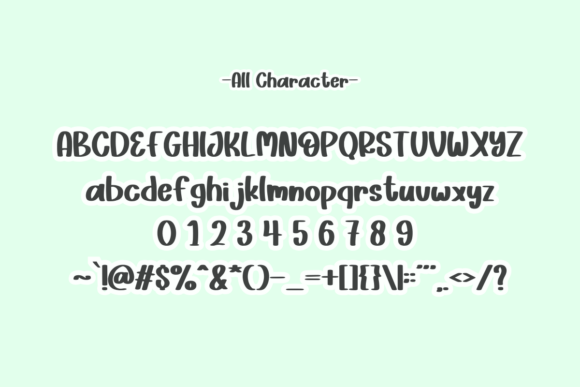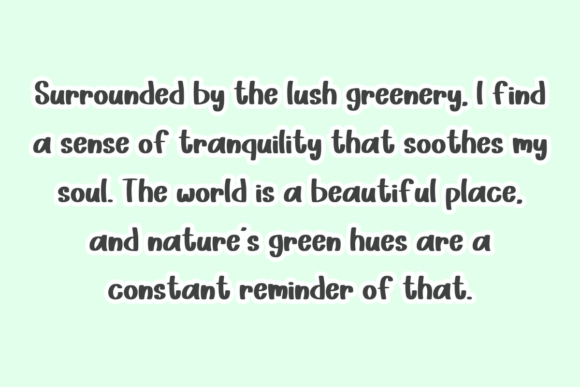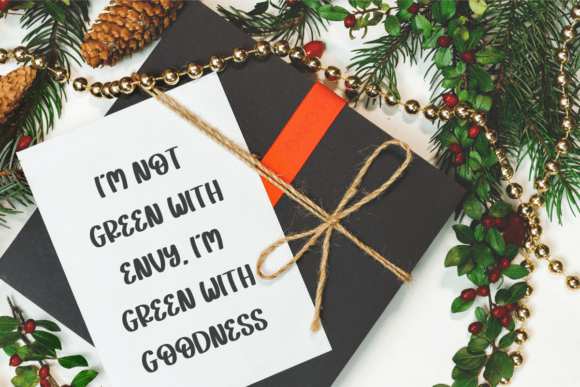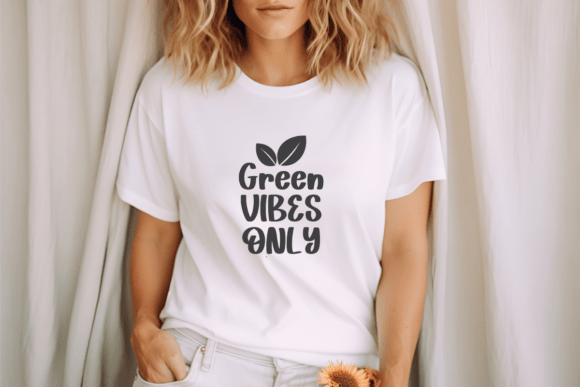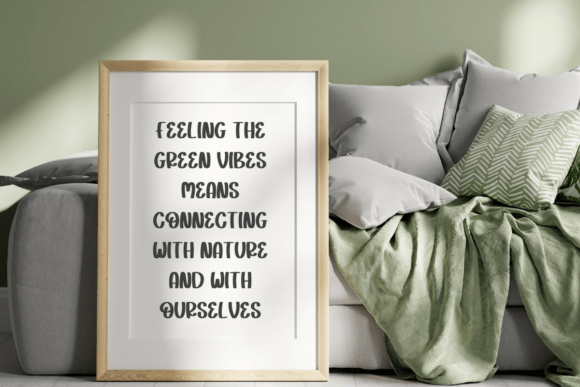
Introduction to Green Vibes Font
Green Vibes is a bold and playful sans serif font with a bubbly charm and eco-friendly flair.
Featuring soft curves and a chunky structure, this font radiates positivity and warmth—making it perfect for nature-themed graphics, eco brands, children’s projects, and modern packaging designs It’s a feel-good font that brings a fresh and happy energy to every layout.